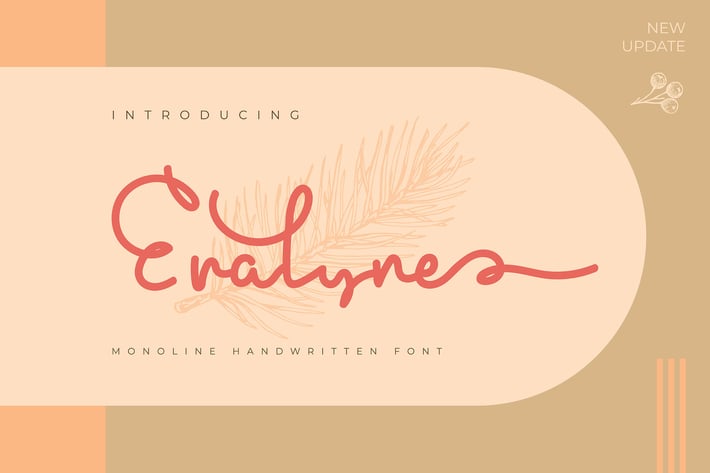
Eralyne | Monoline Handwritten Font
Eralyne | Monoline Handwritten Font with a calligraphy style, So beautiful on invitation like greeting cards, branding materials, business cards, quotes, posters, and more!